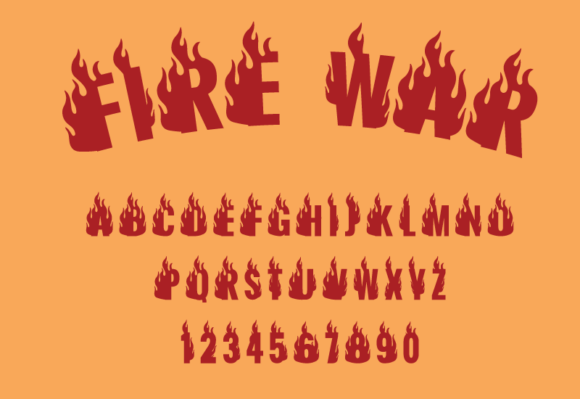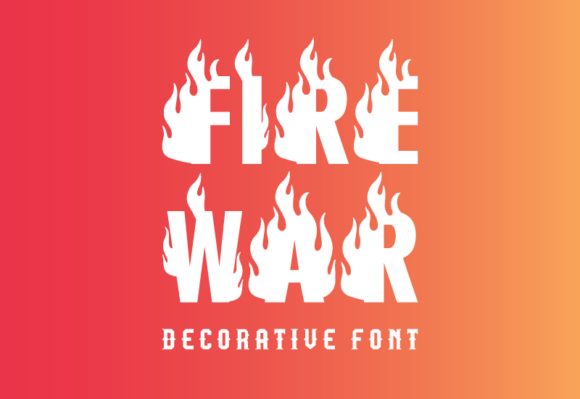
Introduction to Fire War Font
Engulf your designs in a blaze of creativity with the “Fire War” font set – a unique and artistic embodiment of scorching letters.
The “Fire War” font kindles the spark in your ideas, helping to transform your creative visions into jaw-dropping design realities Its striking fusion of originality and style makes it the perfect choice to ignite a powerful aesthetic appeal in your projects.
Key Features of Fire War Font
Why Choose Fire War Font?